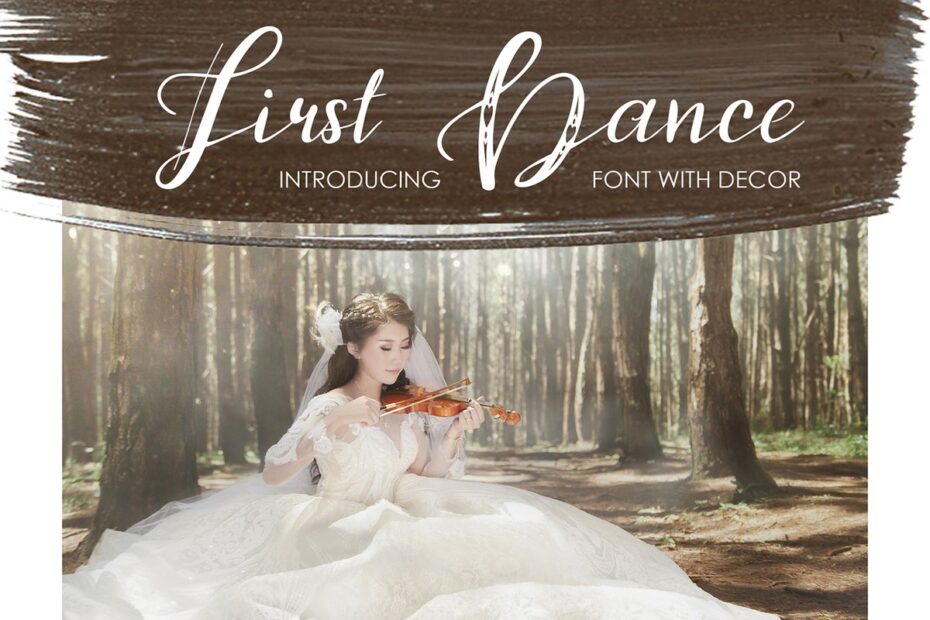
The Perfect Font for a Romantic Moment
As designers, we’ve all been there – staring at a blank canvas, searching for the perfect combination of words and images to evoke the emotions we want to convey. For me, that moment often comes when I’m planning a wedding, thinking about the first dance between the happy couple. The soft music, the twinkling lights, and the tender smile – it’s a moment that’s full of love and magic.
That’s why I’m excited to share with you the First Dance Font, a beautifully evocative and romantic script that can add a touch of rural charm to your designs. With its variable baseline, this font looks stunning when paired with soft and ethereal designs, making it a valuable addition to any designer’s toolkit.
Whether you’re creating wedding invitations, designing a romantic blog, or simply want to add a touch of whimsy to your branding, the First Dance Font is sure to help you capture the essence of that special moment.
Key Features of First Dance Font
- Unique Characteristics: The font features a beautiful, flowing script design with elegant swashes and flourishes, making it perfect for wedding invitations, announcements, and other special occasion designs.
First Dance Font Review
Overall, I’m impressed with the elegance and sophistication of the First Dance Font. ✨ The font’s flowing curves and subtle flourishes evoke a sense of romance and whimsy, making it perfect for wedding invitations, wedding decorations, and other special occasion designs.
The font’s versatility is another major plus. ✨ It works well in both digital and print formats, and can be easily paired with a variety of color schemes and design elements.
- ⚠️ Limited character set: The font only includes uppercase and lowercase letters, as well as a few punctuation marks and numbers. This may limit its use for longer blocks of text.
- ⚠️ Not ideal for body text: The font’s ornate design makes it difficult to read in large quantities, making it best suited for titles, headings, and other display text.
Overall, I would recommend the First Dance Font for designers looking to add a touch of elegance and sophistication to their projects. However, it may not be the best choice for projects requiring a high volume of text or a more straightforward design aesthetic.
Tips for Getting the Most Out of the First Dance Font
To get the most out of the First Dance Font, use it for romantic and elegant designs, such as wedding invitations, engagement announcements, and couples’ posters. Experiment with different font sizes, colors, and styles to create a unique look.
The First Dance Font is commonly used for:
- Wedding invitations and announcements
- Engagement and couples’ posters
- Baby shower invitations and announcements
- Anniversary and birthday celebrations